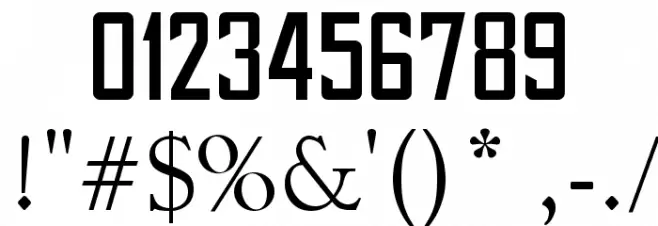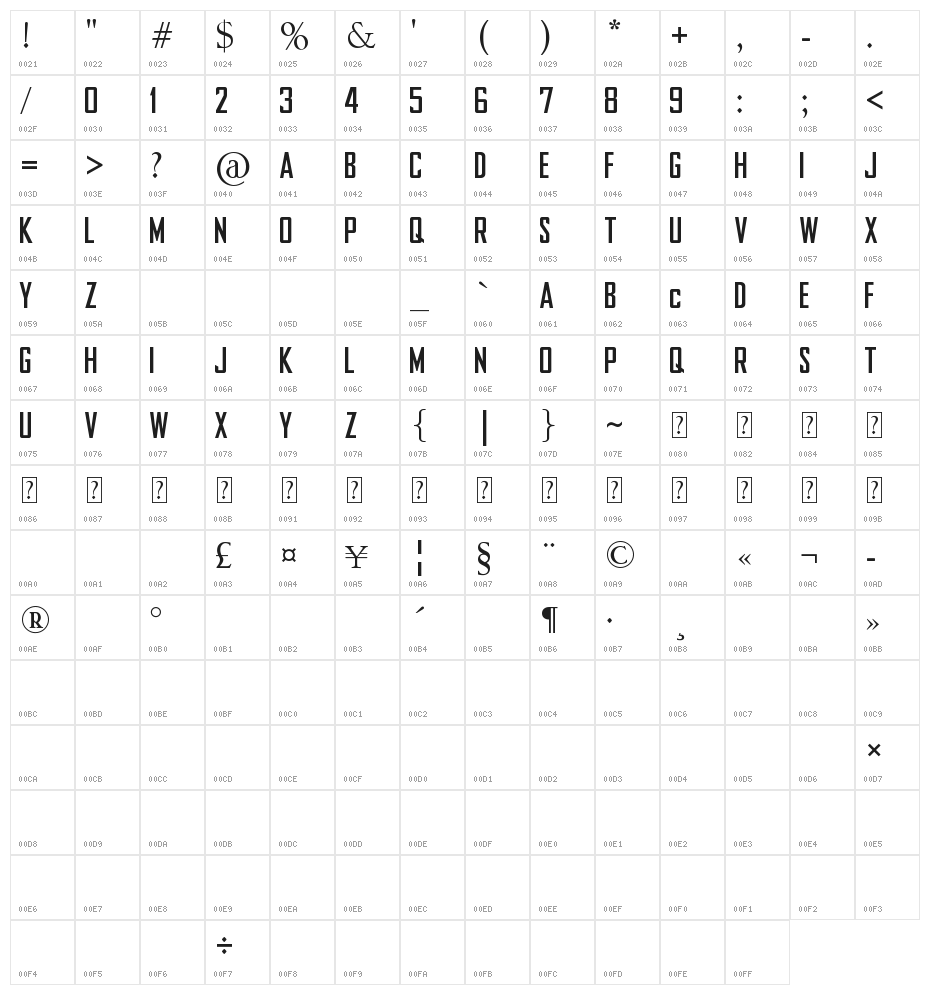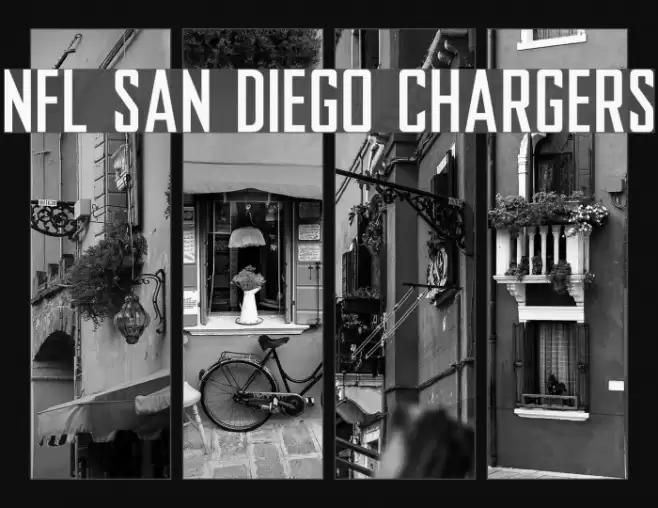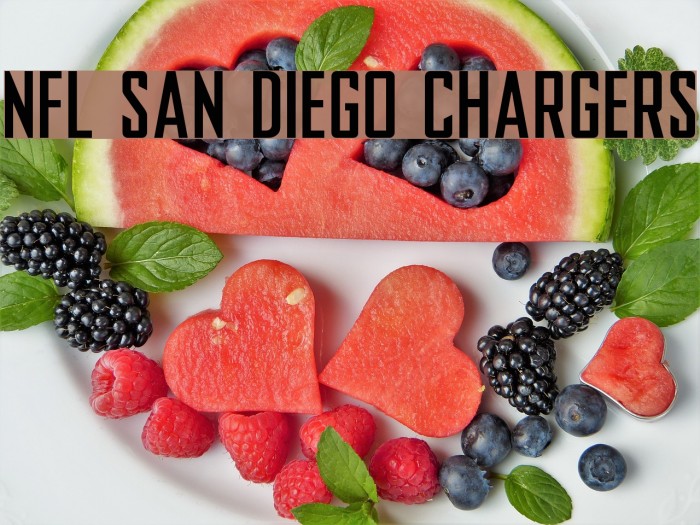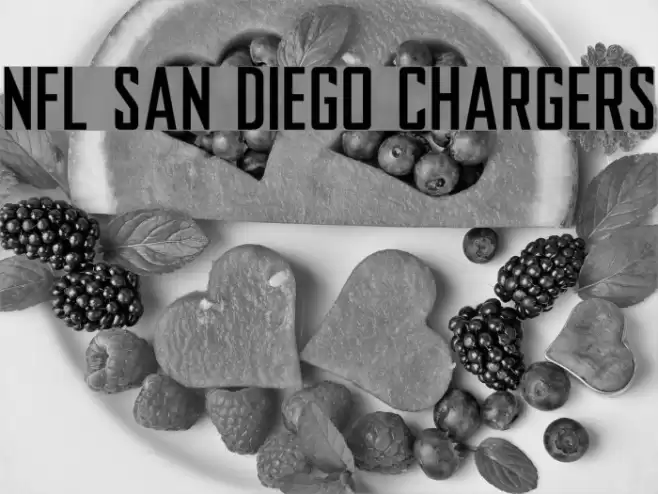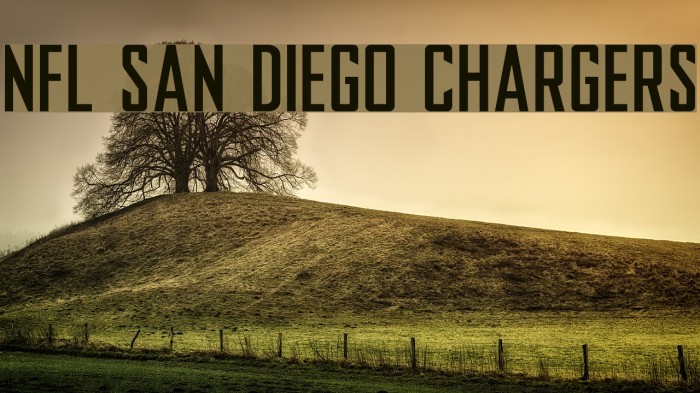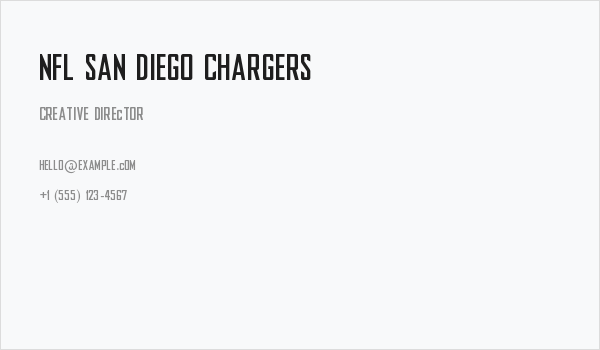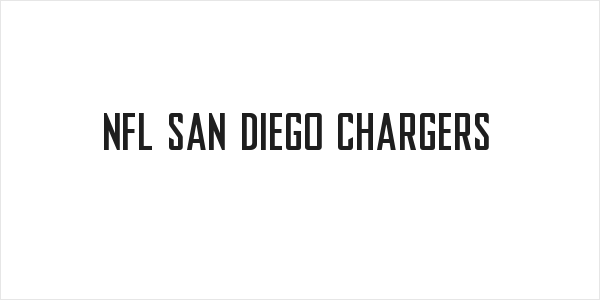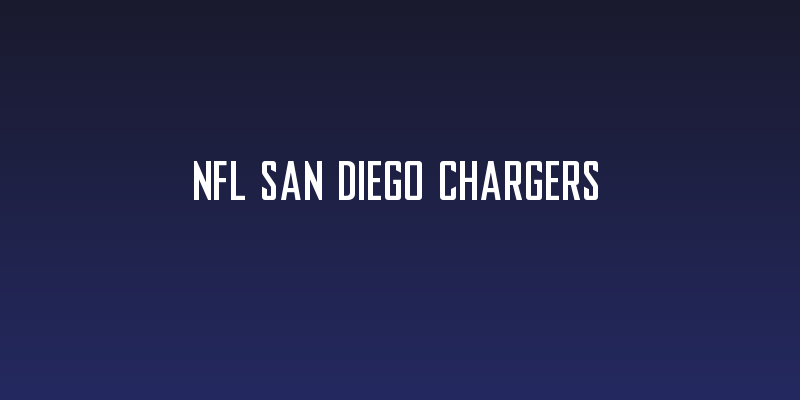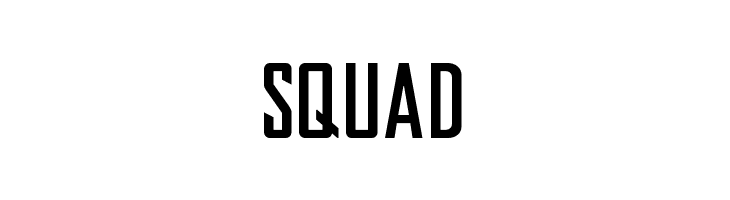
NFL San Diego Chargers Font
NFL San Diego Chargers Description
This font features a bold and dynamic style with a strong presence, characterized by sharp angles and a slightly condensed form. The uppercase letters are tall and commanding, while the lowercase letters maintain a consistent height, providing a uniform appearance. The numerals are clear and easily distinguishable, complementing the overall design. Special characters are crafted with precision, adding to the font's versatility. The font's design is modern and sleek, making it suitable for a variety of applications where impact and readability are essential.